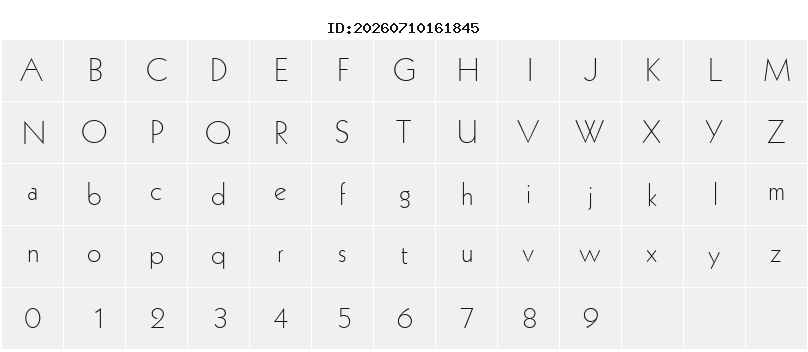
• Font Name: Geometr231 Lt BT
• Font Style: Light
• Font ID: Geometric 231 Light
• Full Font Name: Geometr231 Lt BT Light
• PostScript Name: Geometric231BT-LightC
About Geometr231 Lt BT.ttf
Geometr231 Lt BT.ttf is a modern, elegant sans-serif font designed for ultimate readability and visual harmony. Perfect for branding, headlines, web design, and print materials.